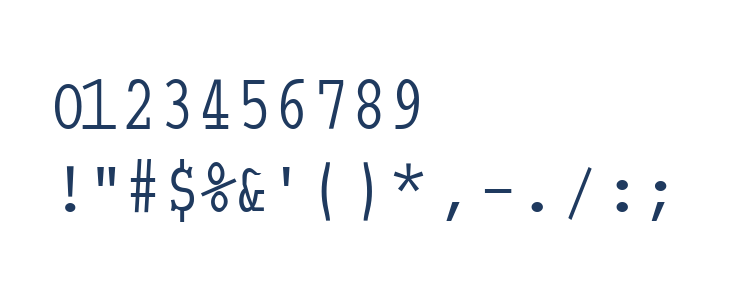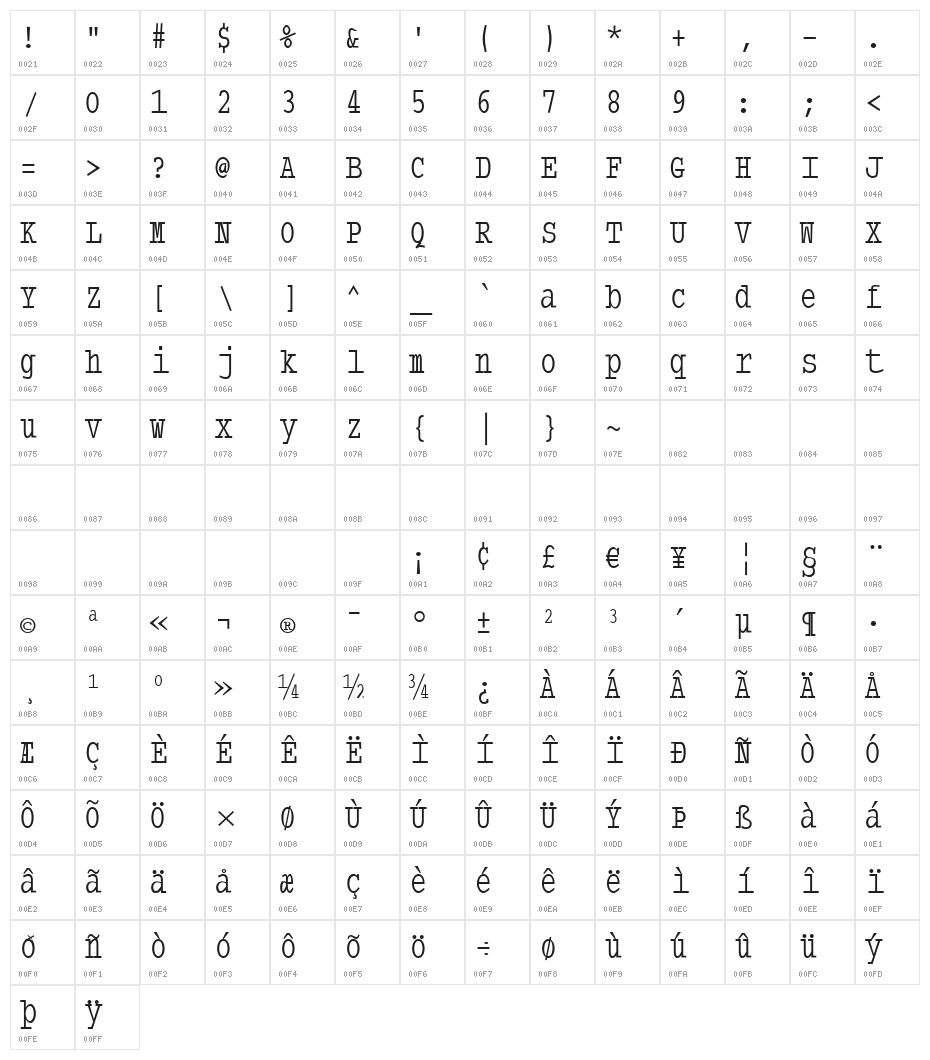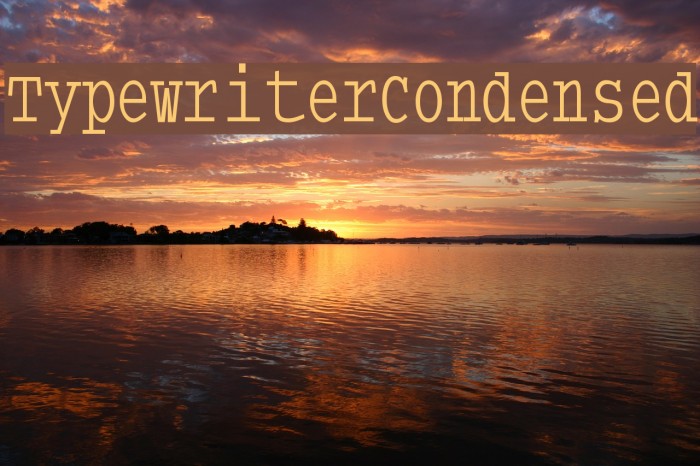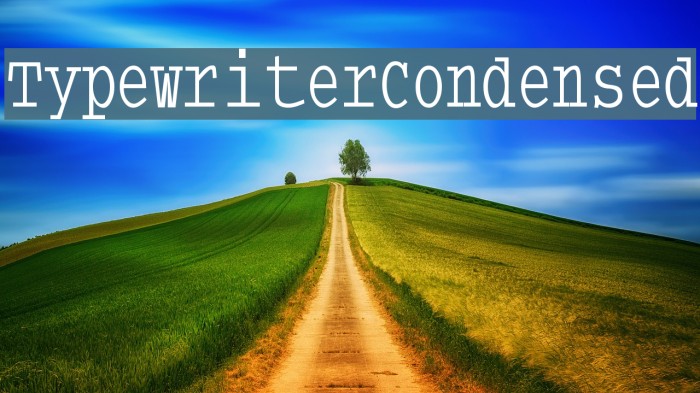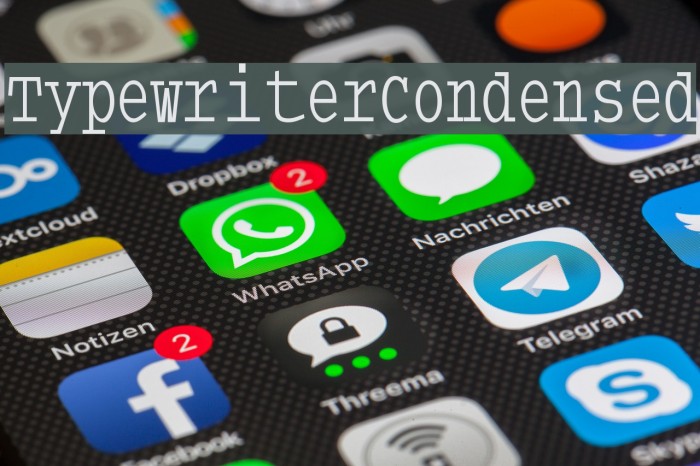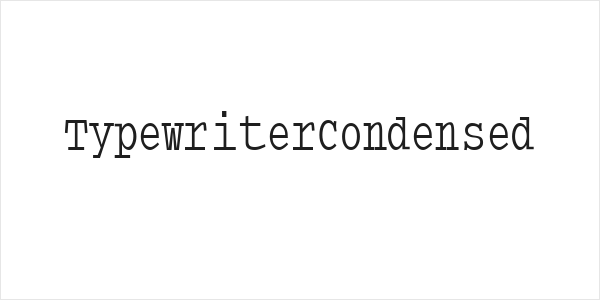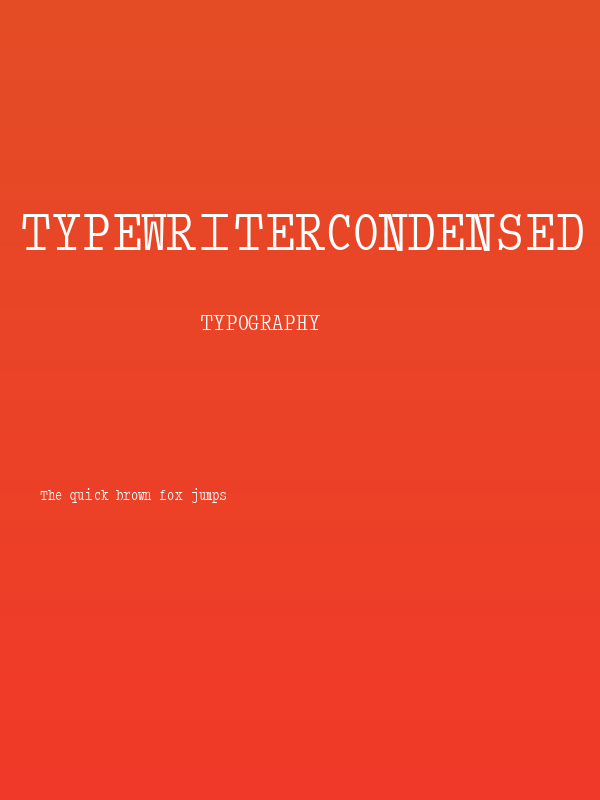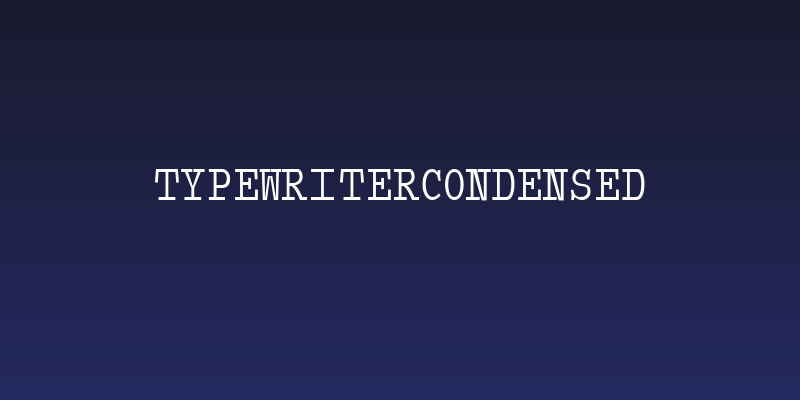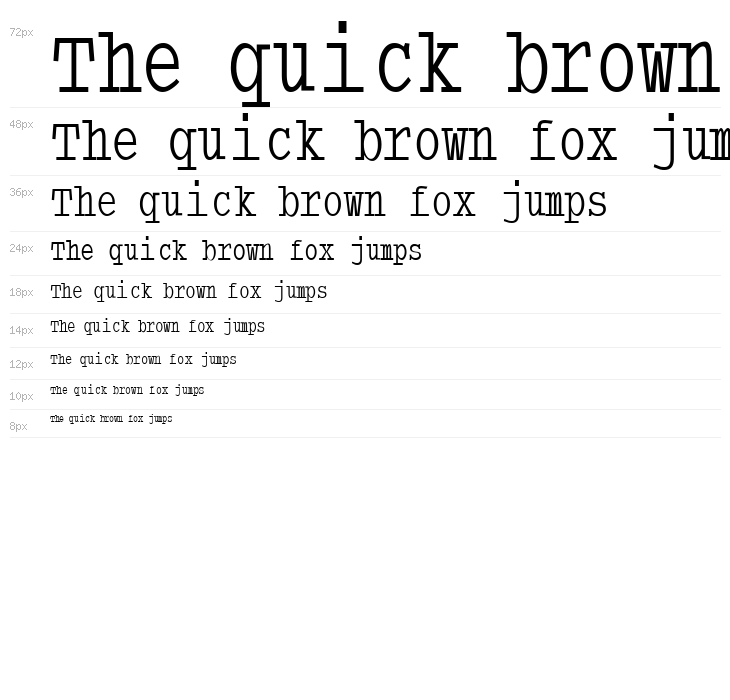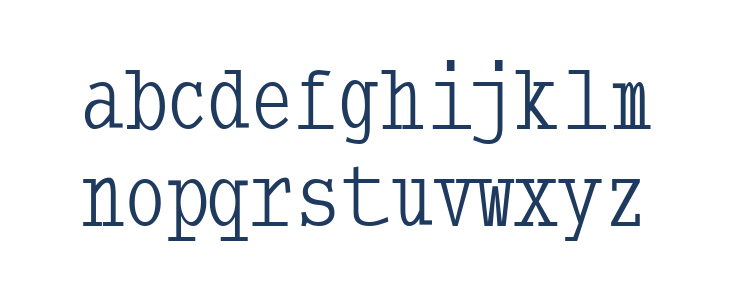
TypewriterCondensed Font
TypewriterCondensed Description
This font embodies the classic aesthetic of a typewriter with a condensed style, offering a nostalgic yet practical appeal. The characters are monospaced, providing uniformity and precision, which is characteristic of traditional typewriter fonts. The strokes are consistent in width, contributing to a clean and organized appearance. The uppercase letters are bold and prominent, while the lowercase letters maintain a balanced and readable form. The numerals and special characters are clear and distinct, ensuring legibility across various uses. This font is ideal for projects that require a vintage or retro feel, such as creative writing, coding, or any design work that aims to evoke a sense of history and authenticity.
| Use Case | Creative writing, Coding, Retro branding |
| Proposed Projects | Ideal for creative writing, coding projects, vintage-themed designs, and retro branding. |